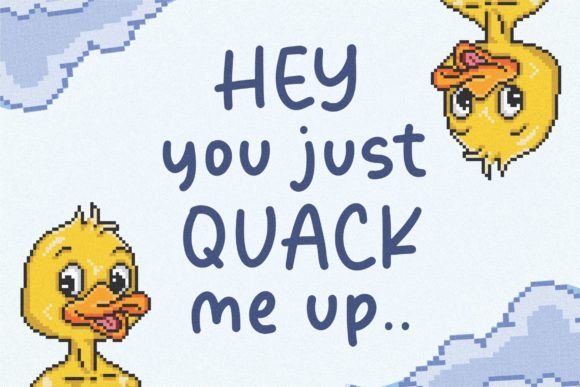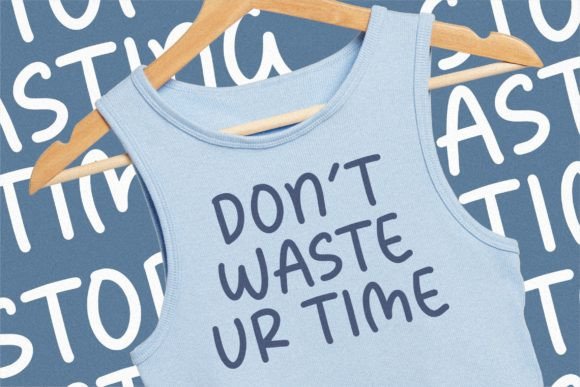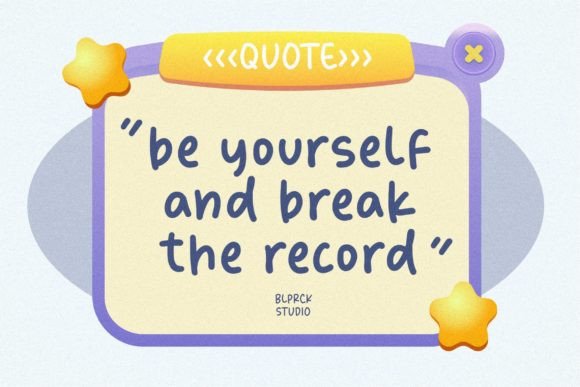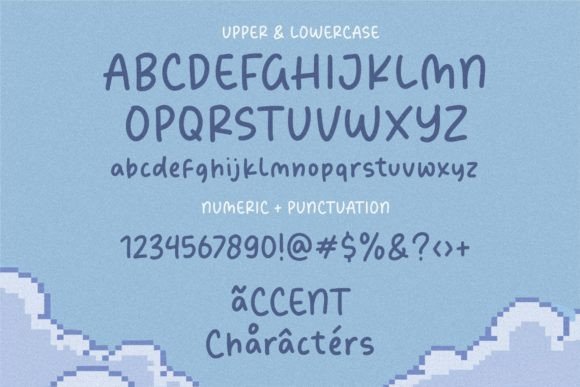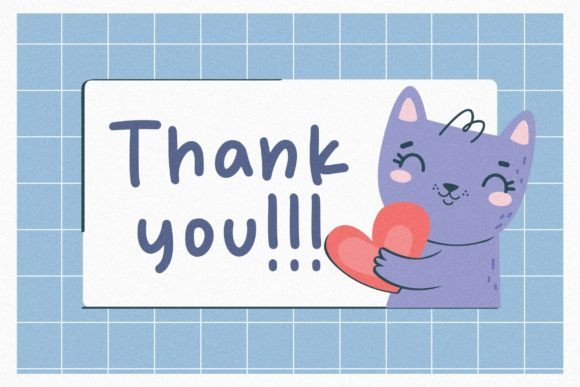
Introduction to Games Studios Font
Games Studios is a fun handwritten font that’s perfect for adding a personal touch to your design projects.
Crafted with care and attention to detail, this font is incredibly versatile and can be used for a range of design projects, including logos, branding, invitations, and more Its modern, handwritten style gives it a unique character that’s sure to make an impact.
Key Features of Games Studios Font
Why Choose Games Studios Font?
Games Studios Font offers exceptional quality and versatility, making it a valuable addition to your design toolkit. Whether you’re creating for personal projects or commercial use, Games Studios Font delivers professional results.